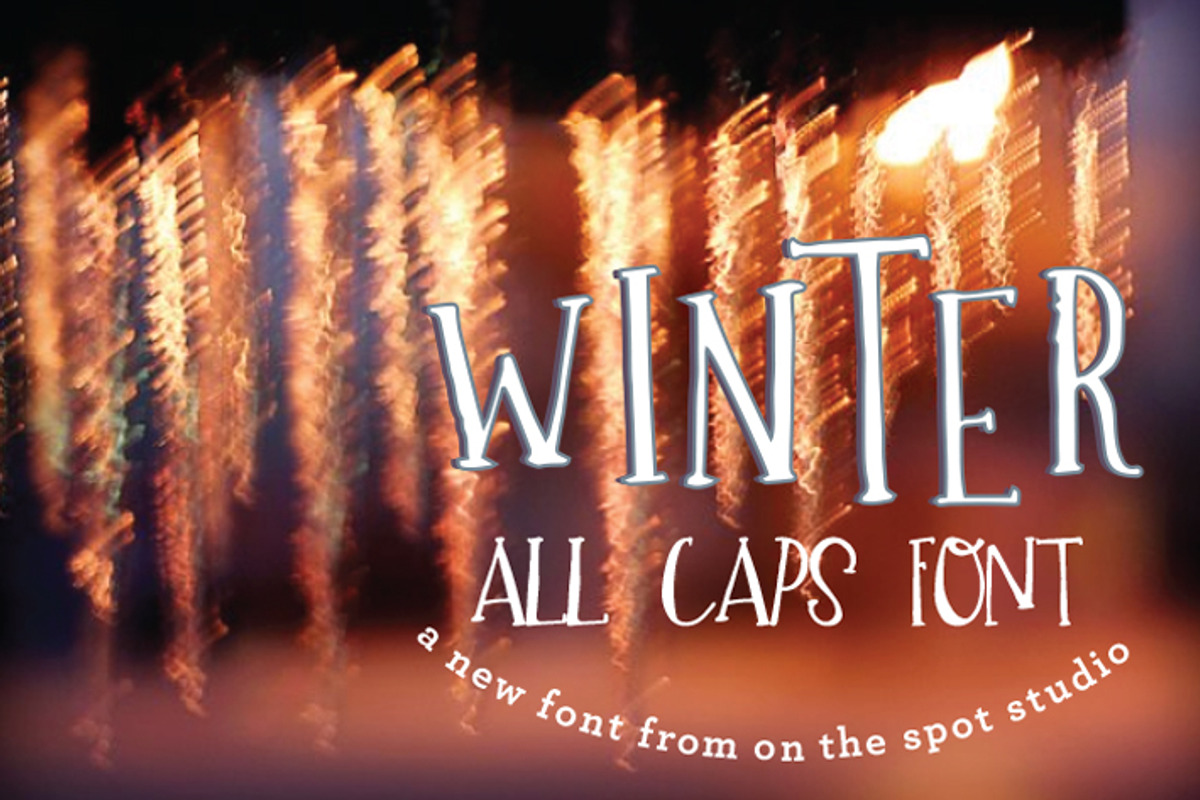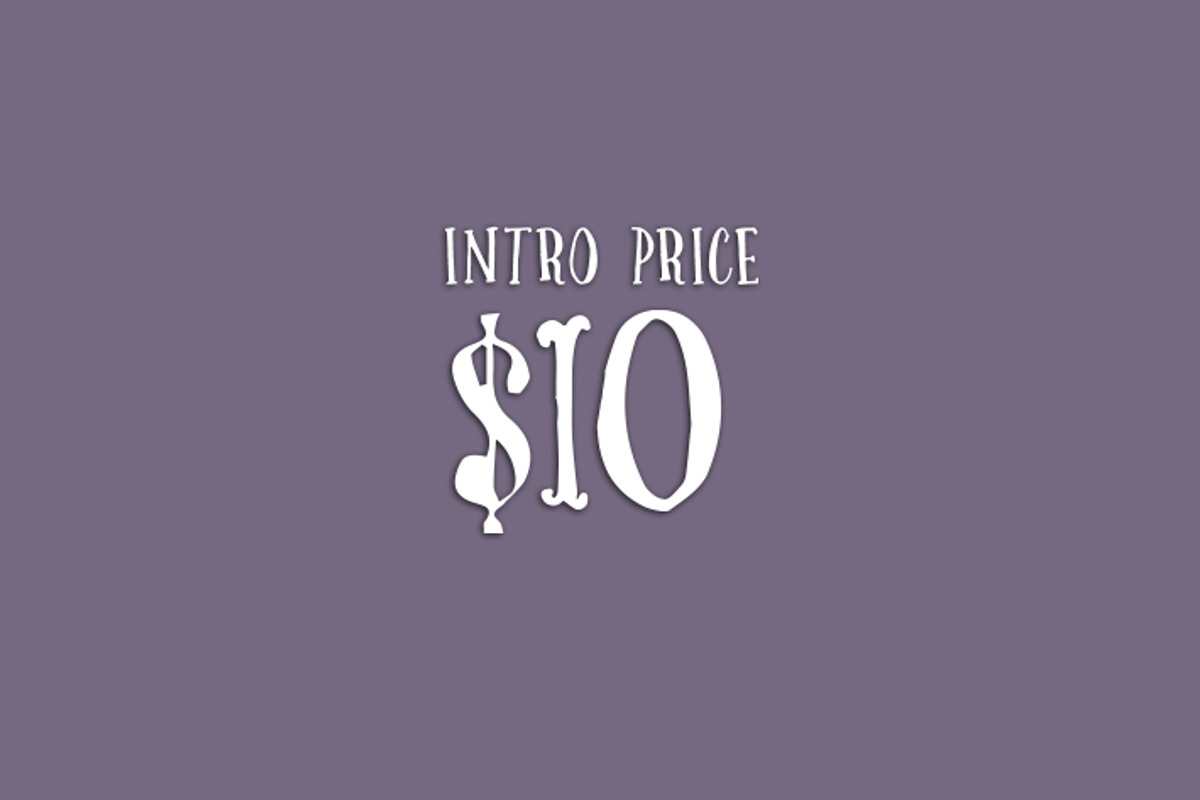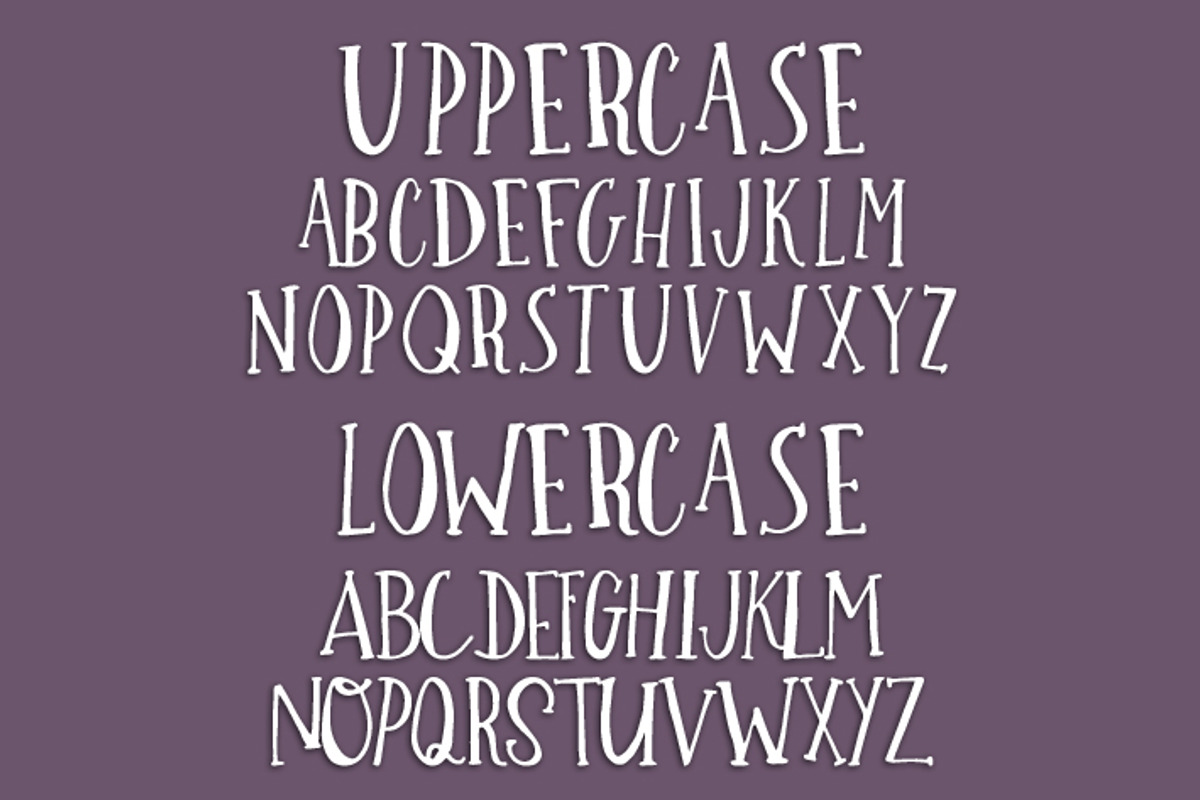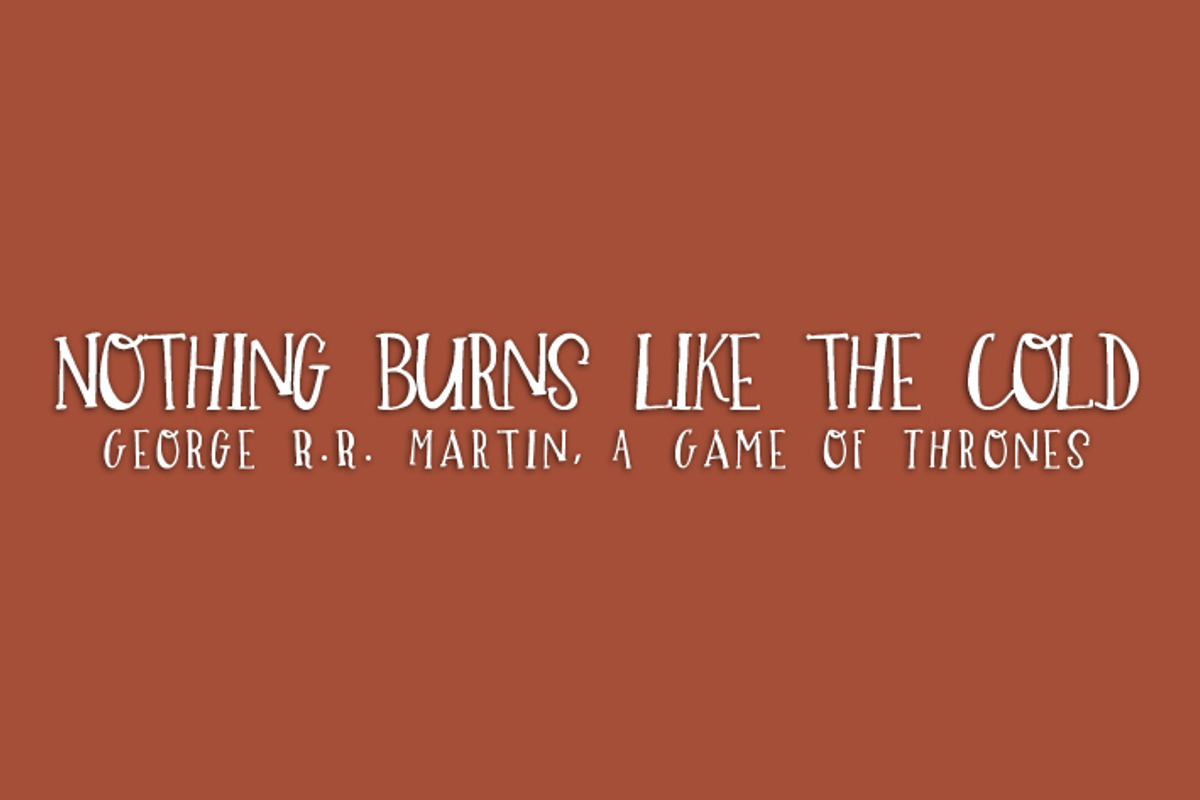
Winter - A Quirky All Caps Font
Winter - A Quirky All Caps Font by OnTheSpotStudio is a font selected for branding, posters, packaging, typography.
- Winter includes all uppercase letters ...
Why Winter - A Quirky All Caps Font is worth a look
Winter - A Quirky All Caps Font by OnTheSpotStudio fits naturally into Branding, posters, packaging, typography.